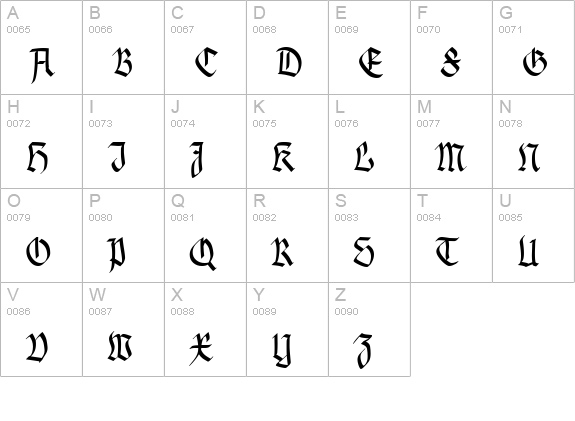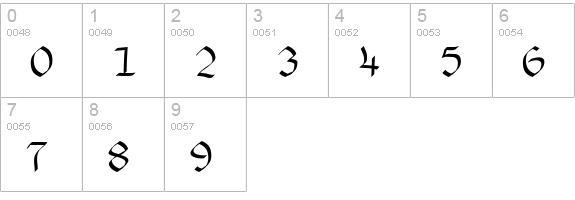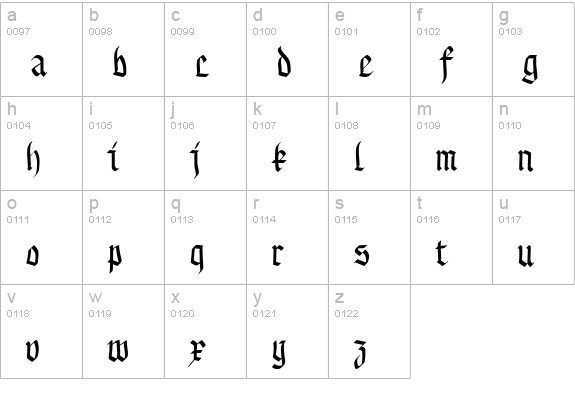
Gothamburg Bold Font Details
Gothamburg Bold is a strong, high-contrast variant in the Gothamburg typeface family \xE2\x80\x94 well suited to headlines, attention-grabbing titles, and strong calls-to-action.
Gothamburg Bold font is a striking and expressive typeface that exudes a sense of dark elegance and edginess. Its bold and angular letterforms make a powerful statement, perfect for adding a touch of drama to your designs. Whether you're creating posters, logos, or branding materials, Gothamburg Bold is sure to make a bold impact. This versatile font is ideal for a wide range of projects, from fashion to music to editorial design. Its unique aesthetic is both modern and timeless, making it a go-to choice for designers looking to make a statement. Best of all, Gothamburg Bold is available for free download at FontsMarket.com. So go ahead and unleash your creativity with this stunning font that is sure to captivate and inspire.